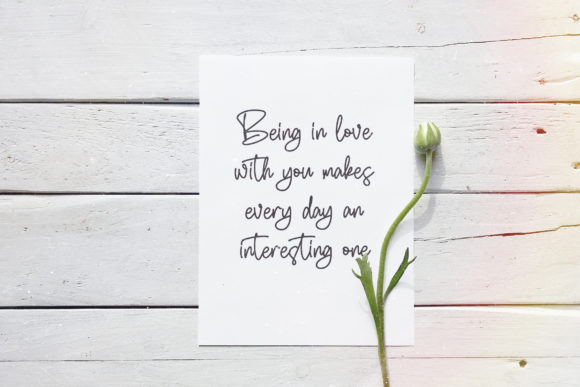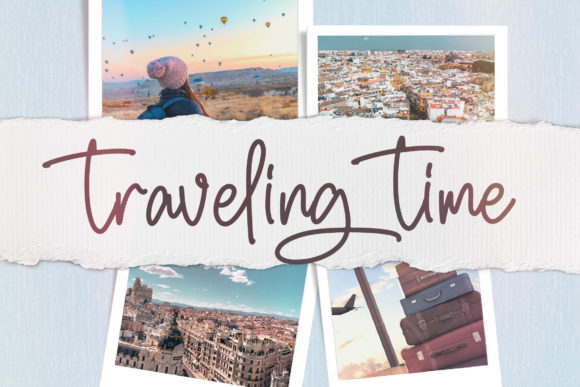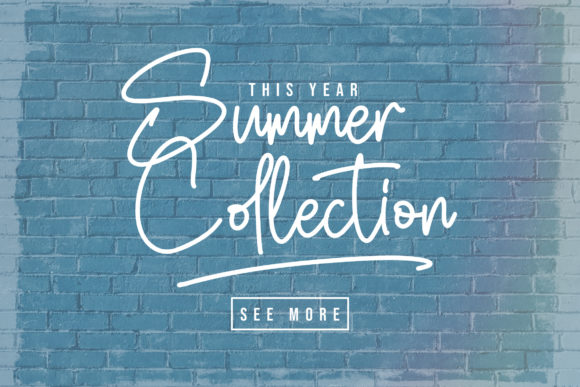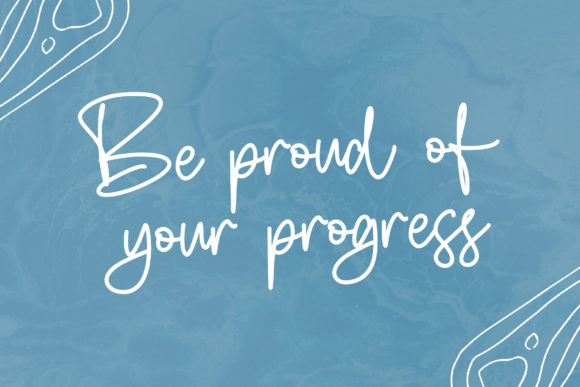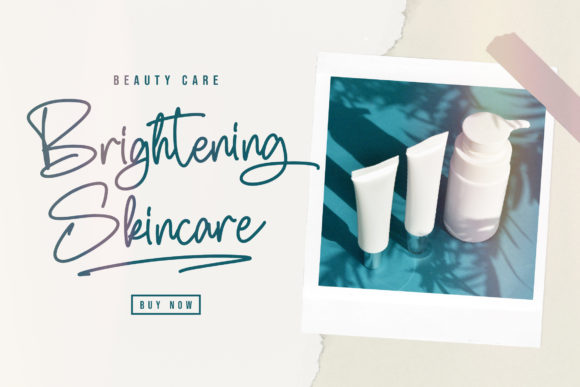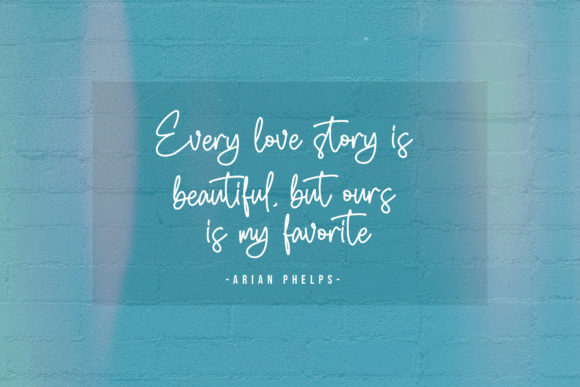
Introducing Antariksa Font: The Perfect Delicate Touch for Your Designs
Are you a designer or crafter looking for a font that adds a touch of elegance and sophistication to your work? Look no further than Antariksa Font, a gorgeous script font that is sure to take your designs to the next level. With its delicate and refined features, Antariksa Font is the perfect choice for a wide range of design projects, from wedding invitations and stationery to branding and packaging.
A Font that Exudes Elegance and Sophistication
Antariksa Font is a beautifully crafted script font that boasts a range of elegant features, including intricate swashes and glyphs. Its delicate touch makes it perfect for designs that require a touch of refinement and sophistication. Whether you’re creating a wedding invitation, a logo, or a brochure, Antariksa Font is sure to add a level of elegance and poise to your work.
One of the standout features of Antariksa Font is that it is PUA (Private Use Area) encoded. This means that you can access all of the font’s glyphs and swashes with ease, giving you complete creative control over your designs. With PUA encoding, you can easily insert glyphs and swashes into your designs, allowing you to create unique and complex typography that sets your work apart.
Antariksa Font is incredibly versatile and can be used for a wide range of design projects. Its delicate features make it perfect for:
- Branding and packaging
- Brochures and flyers
- Logos and icons
Whether you’re working on a personal project or a client’s brief, Antariksa Font is sure to be a valuable addition to your design toolkit.
Why Choose Antariksa Font?
So why choose Antariksa Font over other script fonts on the market? Here are just a few reasons:
- Elegant and refined features: Antariksa Font boasts a range of elegant features, including intricate swashes and glyphs, that are sure to add a touch of sophistication to your designs.
- PUA encoded: With PUA encoding, you can access all of the font’s glyphs and swashes with ease, giving you complete creative control over your designs.
- Versatile: Antariksa Font is perfect for a wide range of design projects, from wedding invitations to branding and packaging.